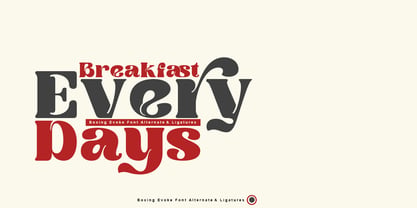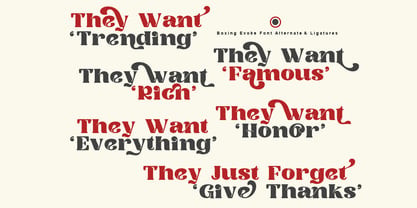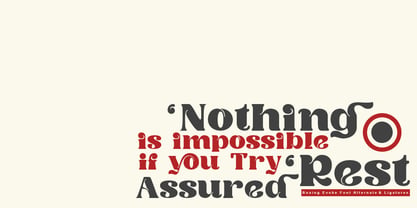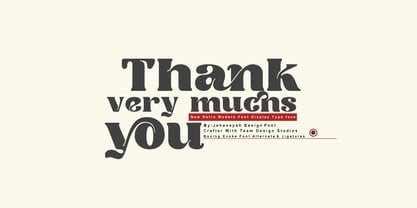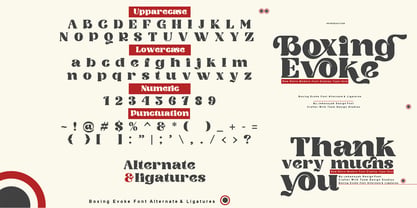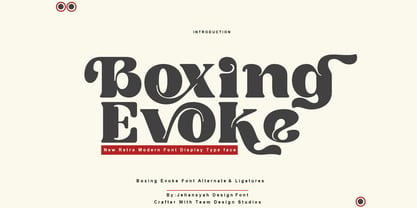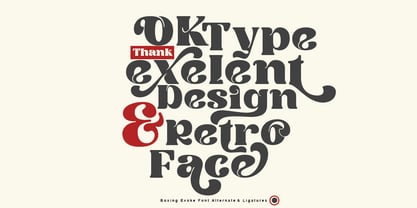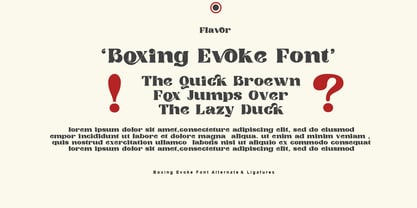
Boxing Evoke
by Jehansyah
The Boxing Evoke Font Family was designed by Ibram Syah and published by Jehansyah. Boxing Evoke contains 1 styles. More about this family
xperience the refinement and fashion-forward appeal of Boxing Evoke – the font that is every designer’s dream. Infused with elegance and a dash of boldness, Boxing Evoke transforms ordinary designs into masterpieces of modern style. It’s not just a font; it’s a sweet companion for your design journey, infused with a host of characters to make your artwork stand out. Boxing Evoke adds an extra layer of class, offering a distinct new edge that enhances your design’s overall aesthetic. With Boxing Evoke, immerse your work in a sea of chic and distinctive flair.
Designers: Ibram Syah
Foundry: Jehansyah